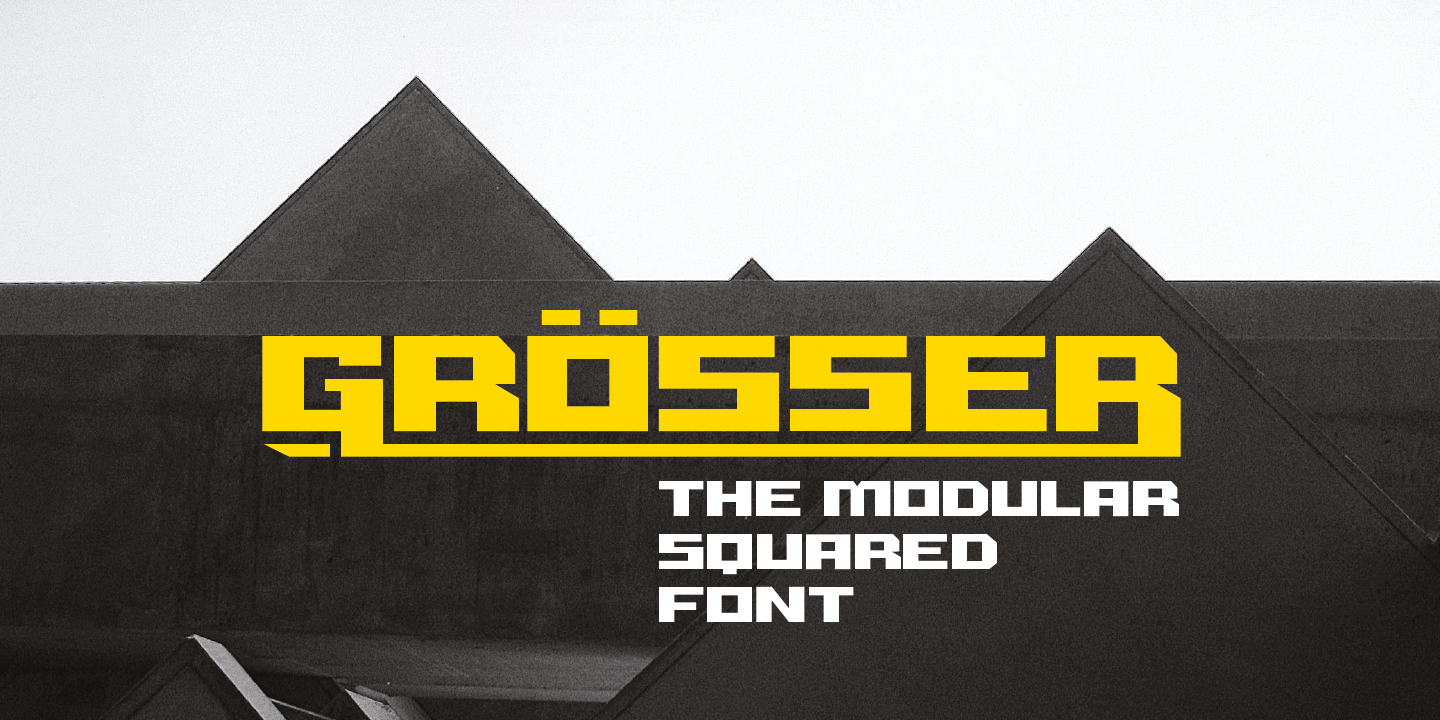
Grosser Font is a robust and impactful typeface, perfect for designs that aim to convey immense strength, industrial scale, or a bold, commanding presence. Its often heavy weights, expansive forms, and sturdy construction make it an excellent choice for large-scale signage, architectural branding, industrial product packaging, and bold headlines for advertising campaigns. Imagine it dominating the facade of a modern building, providing an unyielding visual for a heavy machinery manufacturer, or adding a powerful statement to stadium graphics. This font is also superb for music festival banners (especially rock or electronic genres), gaming titles demanding authority, and any project where an undeniable sense of durability, directness, and visual weight is key. It doesn't just display text; it asserts its presence with monumental force.
What Makes Grosser Font So Exciting?
What makes Grosser Font so exciting is its immediate ability to communicate sheer power and an overwhelming sense of scale. Its inherently heavy design ensures that any message it conveys stands out and leaves a lasting impression, creating a visual impact that is impossible to ignore. This distinctive characteristic makes it a fantastic choice for designers looking to cut through visual clutter and make an undeniable statement. It’s a font that speaks with an uncompromising voice, making it ideal for brands and content creators who want to convey resilience, confidence, and a powerful, no-frills aesthetic. Its commanding appeal can make any headline or slogan feel more significant and visually compelling, creating a sense of reliability and strength.
Usage Examples for Grosser Font
Grosser Font excels in applications where a strong, dominant, and impactful visual statement is desired. Consider its use in:
• Large Format Design: Billboards, banners, and outdoor advertising.
• Industrial & Manufacturing: Branding, logos, and signage for heavy industries.
• Sports & Entertainment: Event posters, team branding, and concert visuals.
• Architecture & Urban Planning: Titles for large-scale projects and official signage.
• Headlines: Print and digital media where headlines need maximum impact.
Grosser Font Family and Weights
The Grosser Font family typically offers a range of extremely heavy weights that emphasize its core strength, providing comprehensive design flexibility within its powerful aesthetic. While it might not have the subtle stylistic variations of more decorative fonts, its utility lies in its diverse stroke thicknesses and their inherent impact. You can generally expect to find essential members such as:
• Grosser Regular (the primary heavy style)
• Grosser Bold (for an even more dominant presence)
• Grosser Black (the heaviest option for maximum impact)
• Grosser Condensed (if available, for space-efficient power in tight layouts)
• Grosser Outline (for a strong, empty effect)
• Grosser Italic/Oblique (if slanted versions are available for dynamic emphasis)
These various weights and styles empower designers to create effective visual hierarchies, emphasize important information, and maintain a consistent, powerful, and commanding look throughout all design assets. The opportunity to utilize Grosser Font Free Download is an excellent way to experience its unique strength and impactful presence for your personal design ventures.